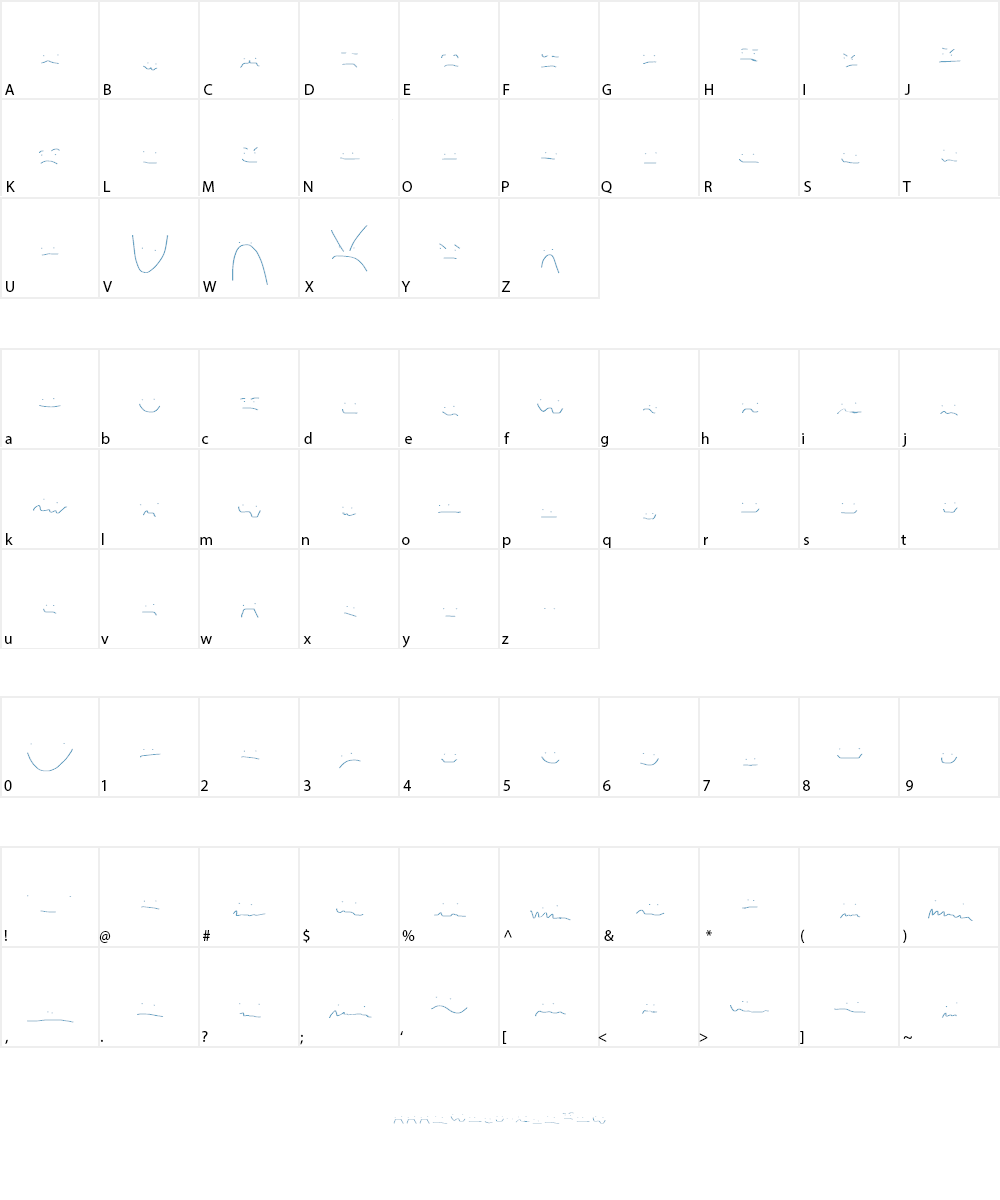
This is a Hand-drawn Emoticon Dingbat font, and a companion font to our earlier emoticon dingbat font Be Happy.
Designed by Mew Too @ Mew Too Fonts & Cannot Into Space Fonts.